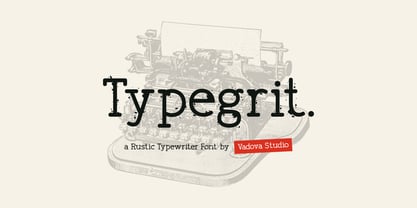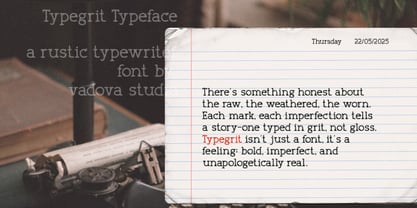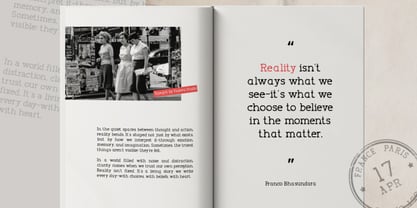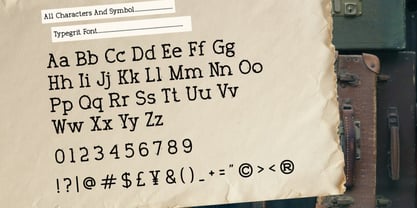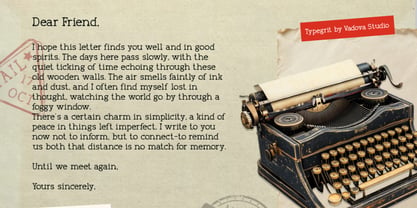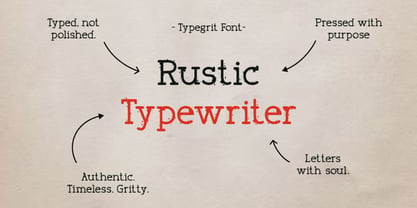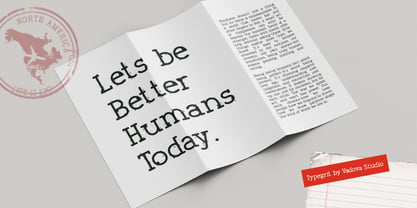
Typegrit
by Vadova Std
The Typegrit Font Family and published by Vadova Std. Typegrit contains 1 styles. More about this family
Typegrit is a rugged and nostalgic serif font inspired by the imperfections of vintage typewriters. With its raw texture and distressed letterforms, it delivers a warm, analog feel that adds character to any layout. This typeface is designed to evoke a sense of authenticity, imperfection, and journalistic grit, making it ideal for projects that seek a handcrafted, editorial, or archival atmosphere.
Suitable for historical and vintage branding, retro-style product packaging, Memoirs and literature, book covers, poetry collections, and typographic posters, magazine spreads. Newspaper and editorial layouts, journals, notebooks, letters, or literary merchandise. Crime, mystery, and documentary themes, Zine and indie publishing.